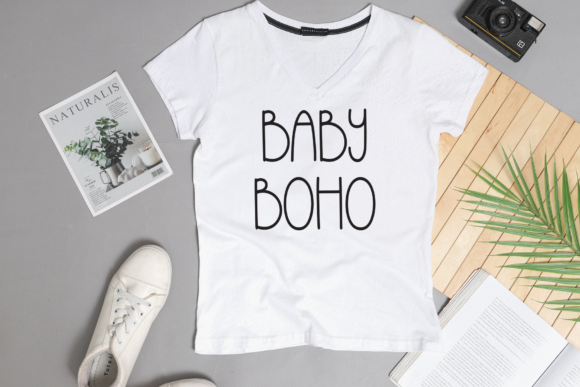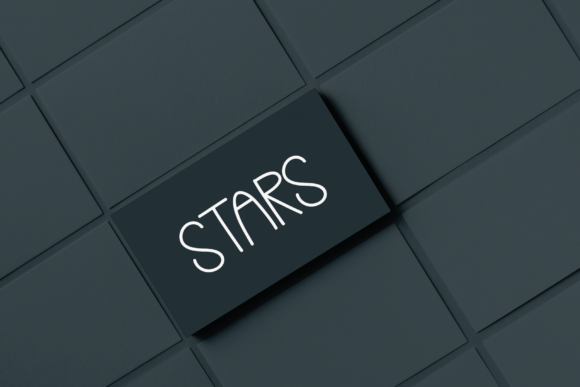
Flower Beauty Font
db-ku.com - Script & Handwritten -- Flower Beauty is a cute, clean and simple lettered handwritten font. It was particularly crafted for those who need a beautiful and refreshing look to their designs.